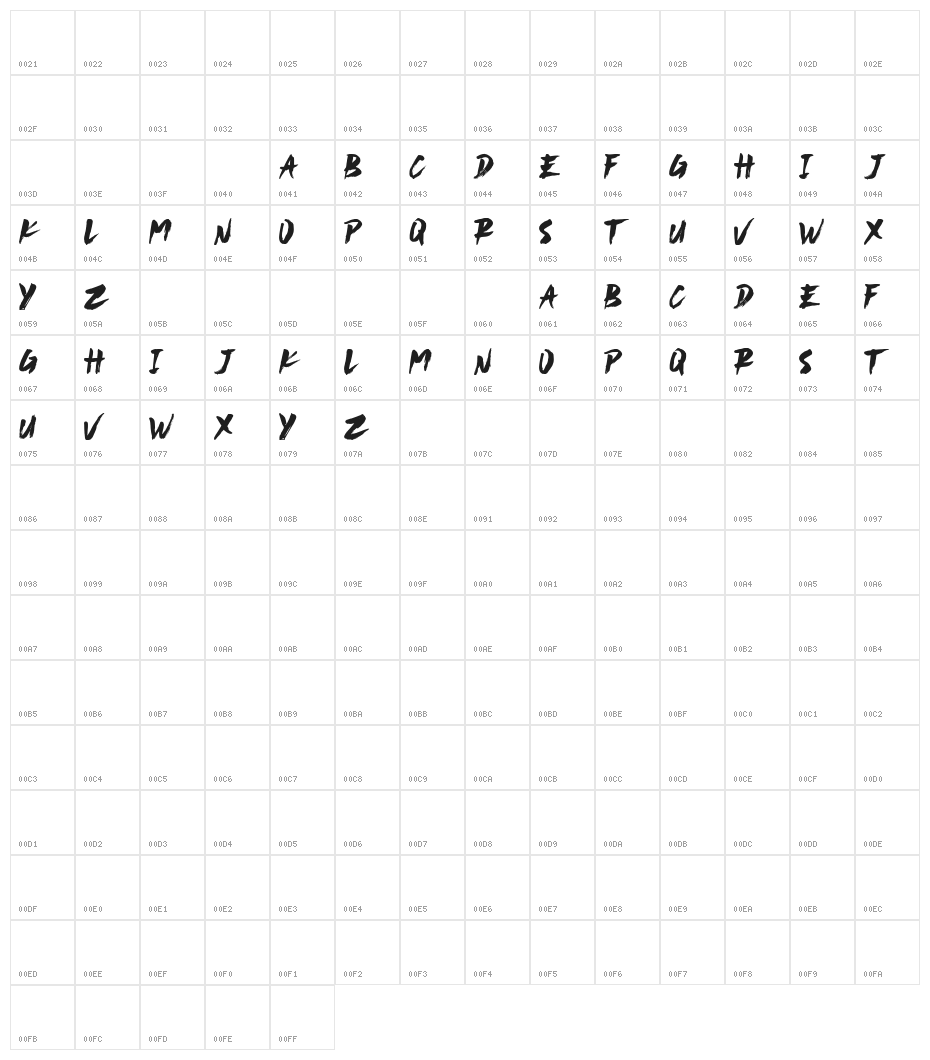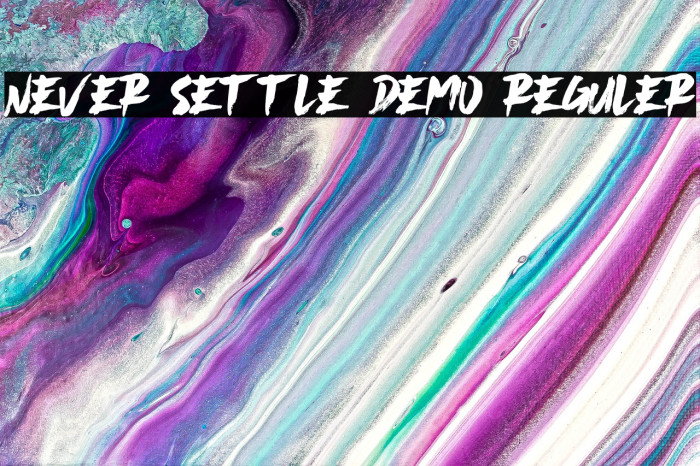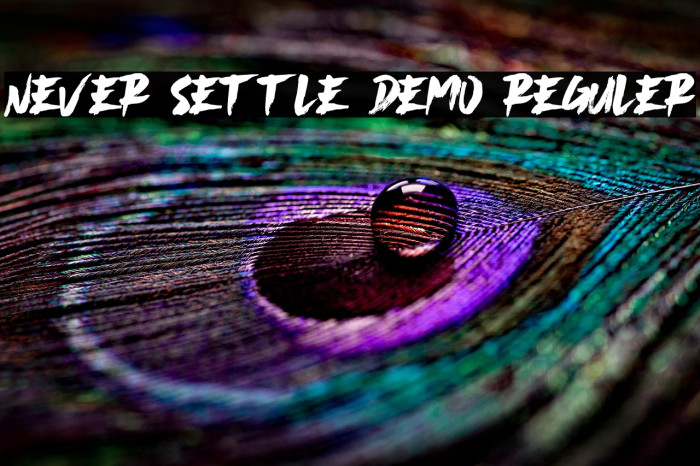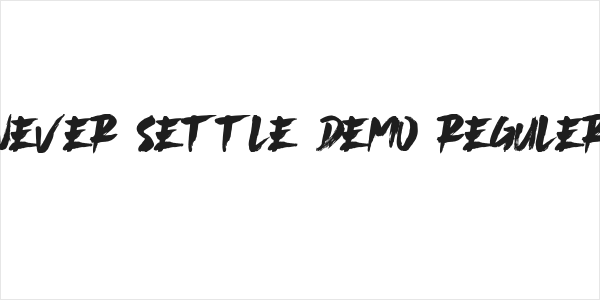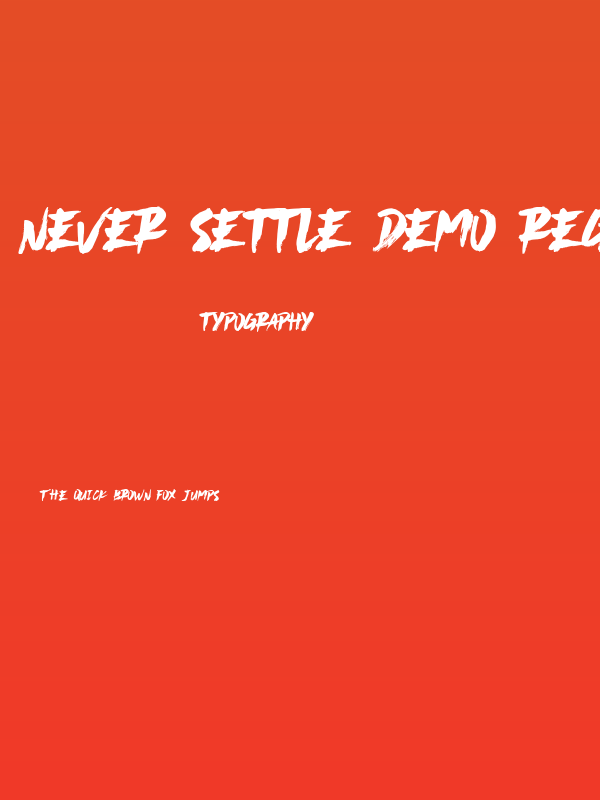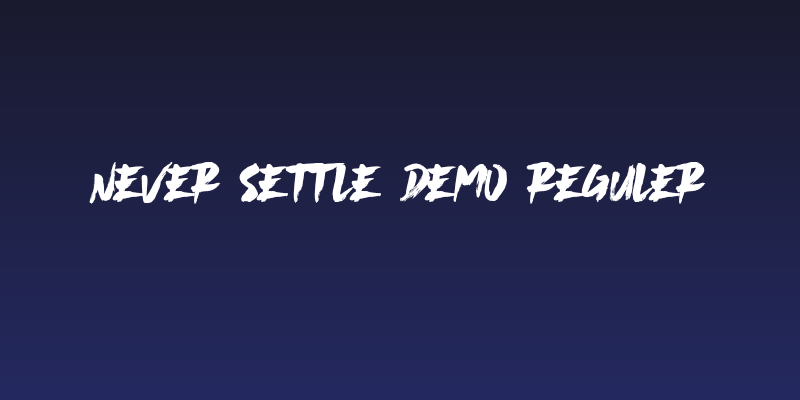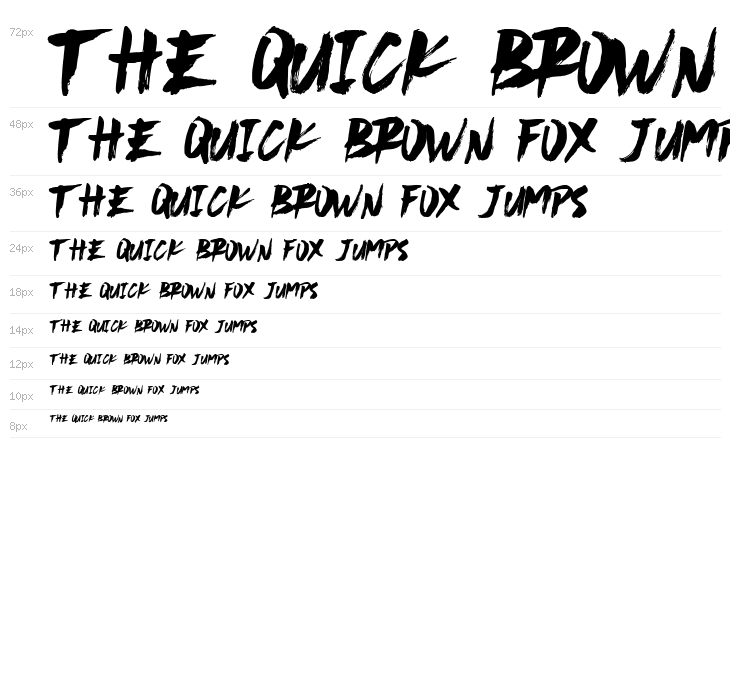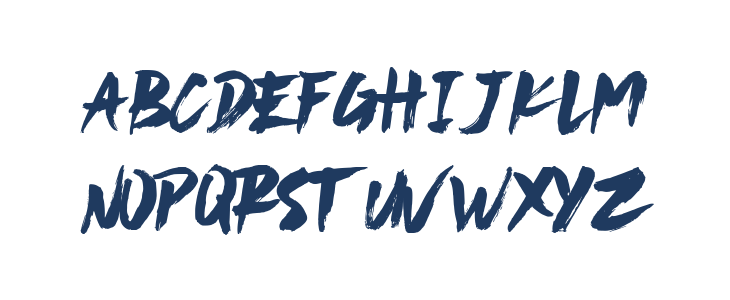
Never Settle Demo Reguler Font
Never Settle Demo Reguler Description
This font features a bold, brush-like script that exudes energy and dynamism. The strokes are thick and uneven, giving it a hand-painted appearance. The letters are slightly slanted, adding a sense of movement and fluidity. The uppercase characters are particularly striking, with dramatic curves and sharp angles. The lowercase letters maintain the same energetic style, ensuring consistency throughout. This font is ideal for projects that require a bold statement, capturing attention with its artistic flair.
| Proposed Projects | Ideal for branding, posters, album covers, and any project needing a bold, artistic touch. |